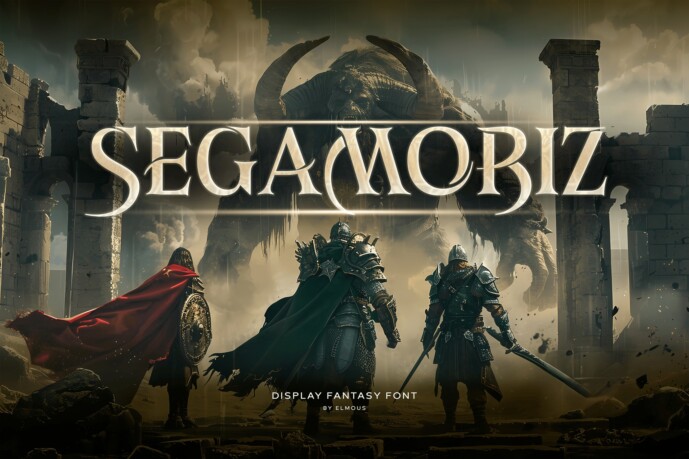
Segamoriz Font
Segamoriz is a fantasy display serif designed to evoke the grandeur and mystique of epic tales. Has a sharp yet elegant serifs, and dramatic alternate glyphs. This font perfect for titles, banners, game, logos, antique, medieval, old english, especially in fantasy or heroic genres.
Segamoriz conveys a sense of adventure and medieval nobility, making it ideal for RPG designs, fantasy video games, book covers (fantasy, medieval, dark romance), movie posters, TCG cards, character sheets, or lore titles historical branding, and enchanted storytelling.